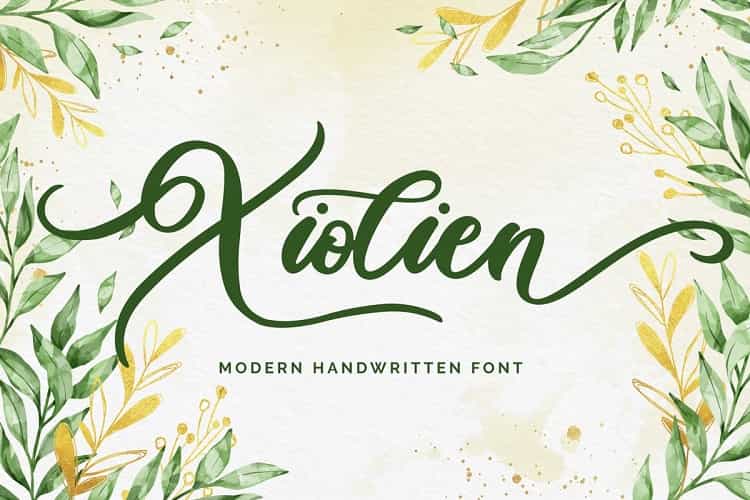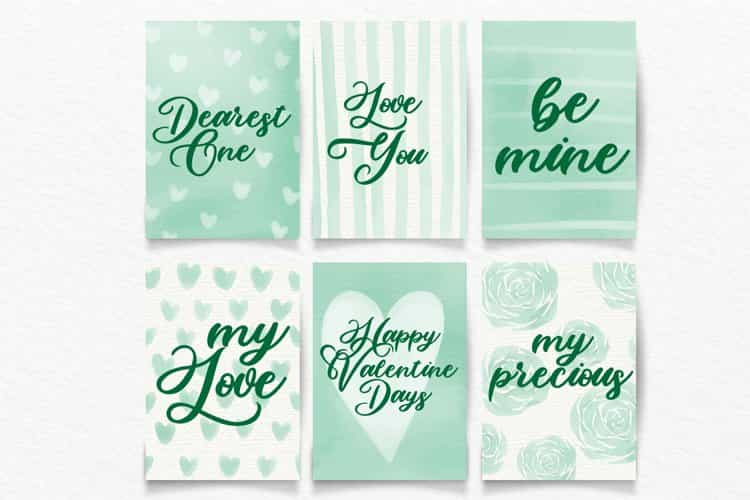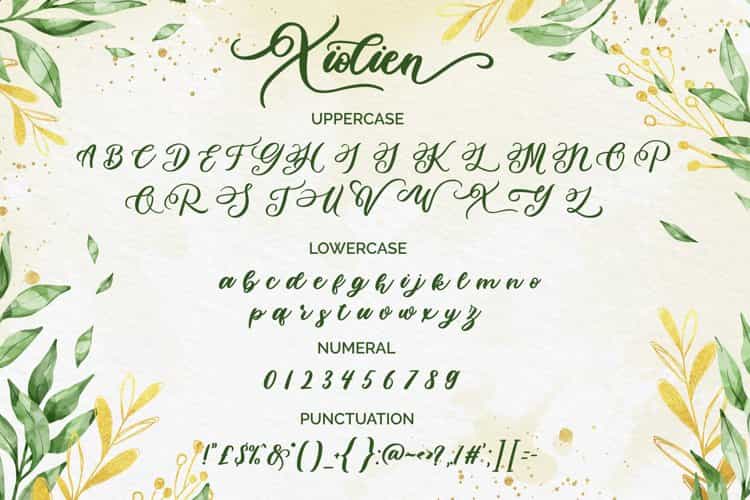
Xiolien is a beautiful modern handwriting script font with many glyphs. It has this nice smoothness to all the lines and characters that fit together completely. It is easy on the eyes just to read, yet also really fun to work with. No doubt you can really get professional results using it–all of which will make your customers happy.